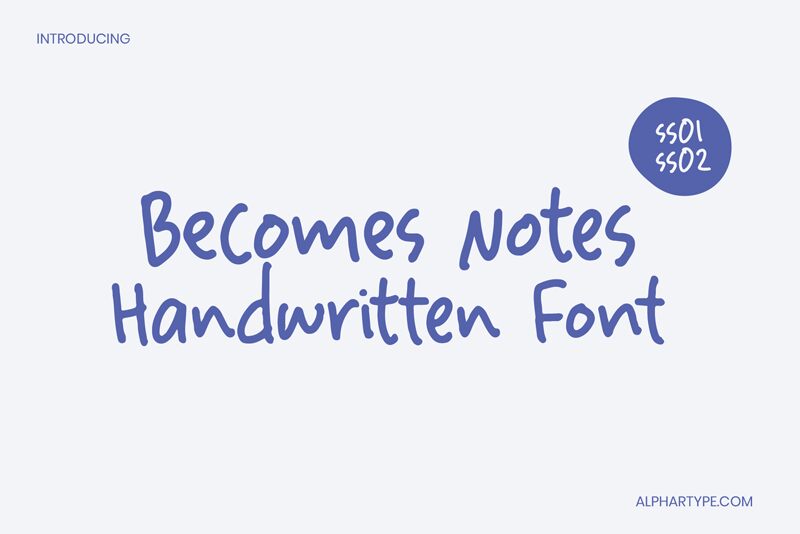
Becomes Notes font family by alphArtype is a free handwritten font family with a genuine unique looks. This font styles have an expressive and relaxed handwriting appearance due to their slight sloppiness and controlled variations in thickness. The font suits personal and informal use and aims to add creativity and modernity to all usage types.
Use Becomes Notes in personal branding, simple logos, websites, games, online content, blogs, magazines, books, stickers, packaging, covers, greeting cards, mug designs, labels, and many more projects.